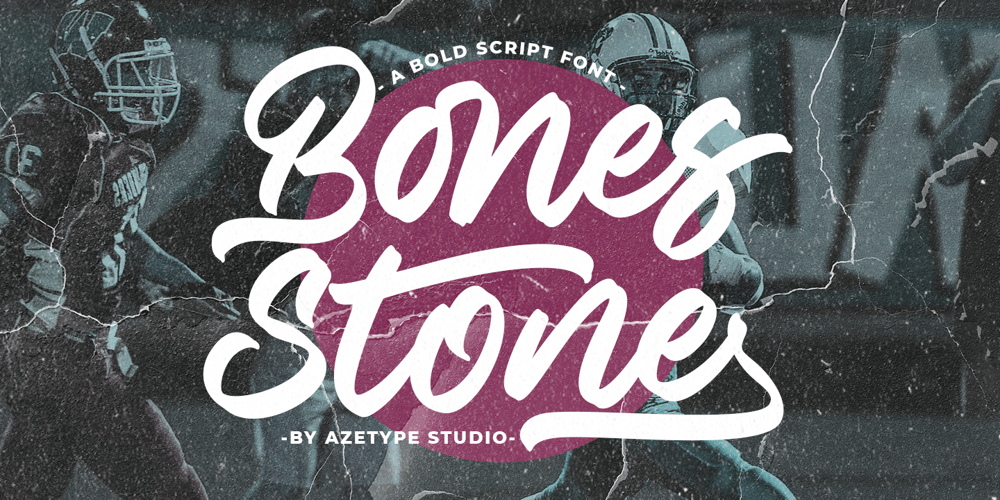
Bones Stone
Bones Stone font
Bones Stone Font Family was designed by Muh. Aswar and published by Azetype. Bones Stone contains 1 styles and family package options. Presenting Bones Stone! A Bold Script Font with more than 9 Alternates and Extra. This font made with the perfect combination of each character. You can type by Mix & Match with an alternate version and extra swashes to get a unique combining. It looks original and can be used for all your project needs. Each glyph has its own uniqueness and when meeting with others will provide dynamic and pleasing proximity. This font can be used at any time and any project. You can see in the presentation picture above, Bones Stone looks Authentic on design projects.So, Bones Stone Font can’t wait to give its touch to all your design projects such as quotes, poster design, personal branding, promotional materials, logotype, product packaging, etc.Besides that, Bones Stone also has some ligature that gives a surprise when you type certain characters combining. The ligatures are ff, tt, and ll.WHAT’S INCLUDED?1. Bones Stone Basic • The first version comes with uppercase, lowercase, ligatures, numeral, punctuation, symbols, and Standard Latin Multilingual Support (Afrikaans, Albanian, Catalan, Danish, Dutch, English, French, German, Icelandic, Indonesian, Italian, Malay, Norwegian, Portuguese, Spanisch, Swedish, Zulu, and More).2. Bones Stone Stylistic Alternate • The Second version comes with uppercase, lowercase, ligatures, numeral, punctuation, symbols, and Standard Latin Multilingual Support (Afrikaans, Albanian, Catalan, Danish, Dutch, English, French, German, Icelandic, Indonesian, Italian, Malay, Norwegian, Portuguese, Spanisch, Swedish, Zulu, and More).3. Bones Stone Stylistic Set • It comes with 12 stylistic glyphs. Just access using Opentype Tools.5. Bones Stone Swash • It comes with 47 underline swashes. Just type c_1 until c_47 to feature all.Enjoy the Font and Happy Creating!Thank YouAzetype Studio